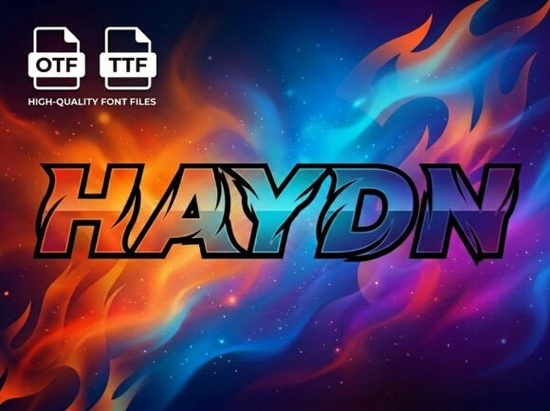
If you're looking for a bold, high-energy font that commands attention, Haydn Font delivers exactly what you need. It’s designed for moments when your design needs to stand out whether it’s a gaming event poster, a brand logo, or a social media post that demands a second glance. With its sharp, aerodynamic cuts and flame-like cutouts, Haydn adds a dynamic edge to any project.
What makes Haydn Font stand out?
Unlike standard display fonts, Haydn combines aggressive styling with precision. The uppercase letters are extra-bold and italicized, giving them motion and momentum. Inside each character, hollow flame lick cutouts create the illusion of fire burning through the letterforms. This effect works especially well on dark or textured backgrounds, where the contrast really pops.
The font is built for impact. It’s not meant for long paragraphs it shines in headlines, logos, banners, and branding elements. Pair it with clean, minimal text for balance, or go full throttle with a fiery background like swirling nebulae or orange-and-blue flames.
Best uses for Haydn Font in real projects
- E-sports tournament branding: Use Haydn for titles, team names, or event banners to match the fast-paced energy of competitive gaming.
- Extreme sports or automotive flyers: Perfect for racing events, motorcycle clubs, or adrenaline-focused brands.
- Energy drink labels: Its bold presence fits perfectly on packaging that wants to feel bold and unapologetic.
- Social media headlines: Grab attention quickly on platforms like Instagram or TikTok with a strong visual punch.
- College gaming team apparel: Turn hoodies, jerseys, or hats into statement pieces with this striking typeface.
You’ll find that Haydn pairs well with other bold fonts too. For example, try combining it with Bowlby One for a more refined contrast, or layer it over Quirknest for a playful yet intense look. If you’re going for something more dramatic, The Western brings a rugged, vintage feel that complements Haydn’s intensity. For a softer contrast, consider Loveberry Bold or Happy Capsule as supporting fonts in your design system.
How to use Haydn effectively without overwhelming your design
While Haydn is powerful, it’s easy to overuse. Keep these tips in mind:
- Use it only for short bursts headlines, logos, or key phrases.
- Keep the rest of your layout simple: stick to neutral colors or subtle textures.
- Ensure legibility by avoiding small sizes or low-contrast backgrounds.
- Test how it looks on both screen and print some cutouts may blur at low resolutions.
Final thoughts: Is Haydn right for your next project?
If your goal is to make a bold statement especially in gaming, sports, or lifestyle branding Haydn Font is a strong choice. It’s not just another flashy typeface; it’s crafted with intention, using negative space and form to create movement and tension. Whether you’re designing merch, promoting an event, or building a brand identity, this font helps you say “I’m here” without saying a word.